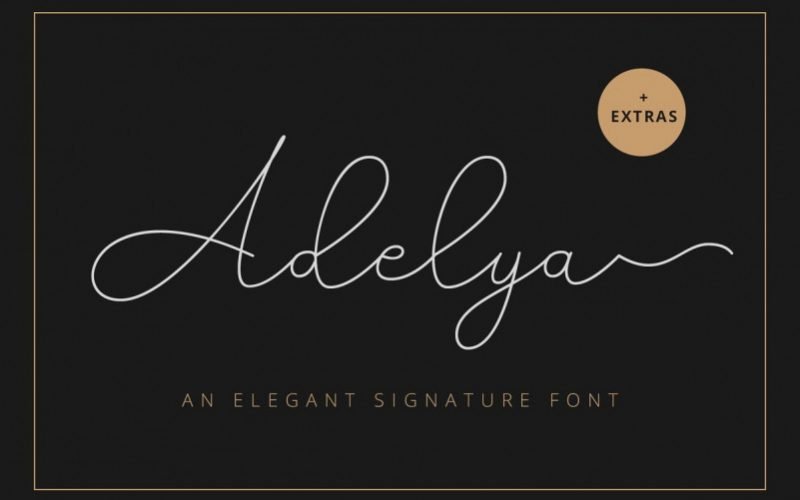
Adelya Signature Font
Adelya Font is a hand signature font originally made by hand by craftsupplyco
Adelya is perfect for branding projects, logo, wedding designs, social media posts, advertisements, product packaging, product designs, label, photography, watermark, invitation, stationery and any projects.